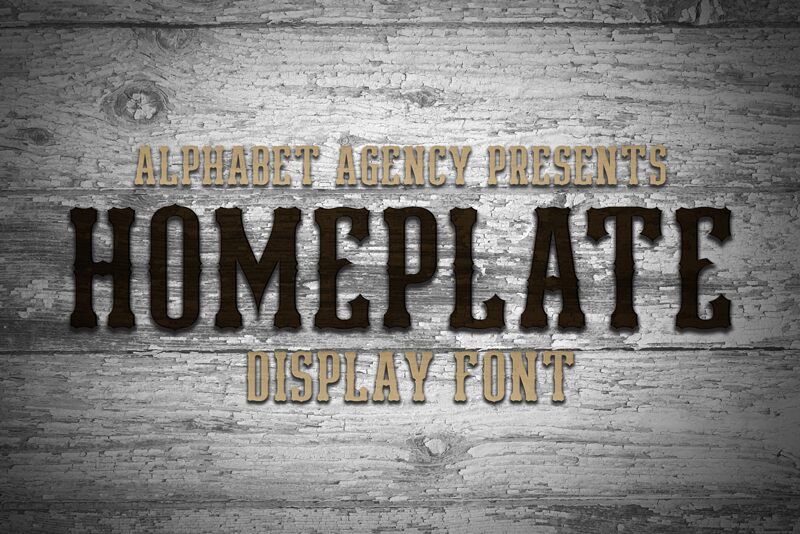
Homeplate, the ultimate display font designed by Jonathan Swinn, is a perfect fit for projects that require a strong and rustic feel. With its western eroded style, Homeplate adds a unique touch of authenticity to any design project. The extra-condensed width of the Homeplate font typeface makes it ideal for headlines, logos and signage that require maximum impact in minimal space. Use this semi-bold font to create eye-catching banners, posters, and packaging designs that stand out from the crowd. Whether it's for a cowboy-themed event or a modern-day brand with an edgy vibe - Homeplate will make sure your message hits home!